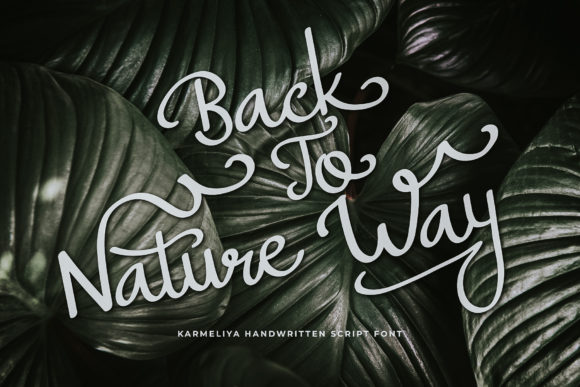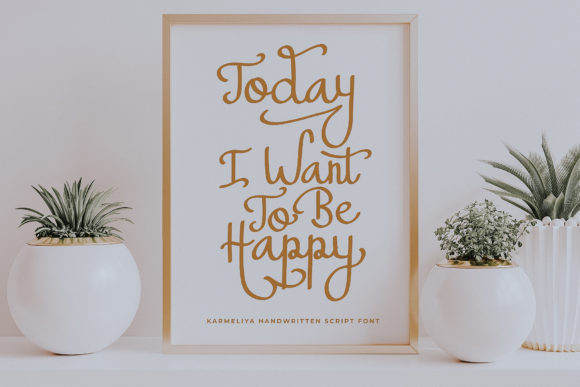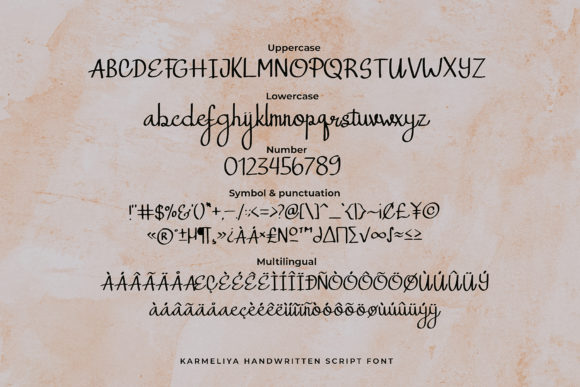
Introduction to Karmeliya Font
Karmeliya is an elegant and stylish handwritten script font.
Use this beautiful and unique font for creating outstanding logos, labeling, clothing, wedding invitations, quotes, blog titles, youtube video titles, album covers, and much more This font is PUA encoded which means you can access all of the glyphs and swashes with ease.